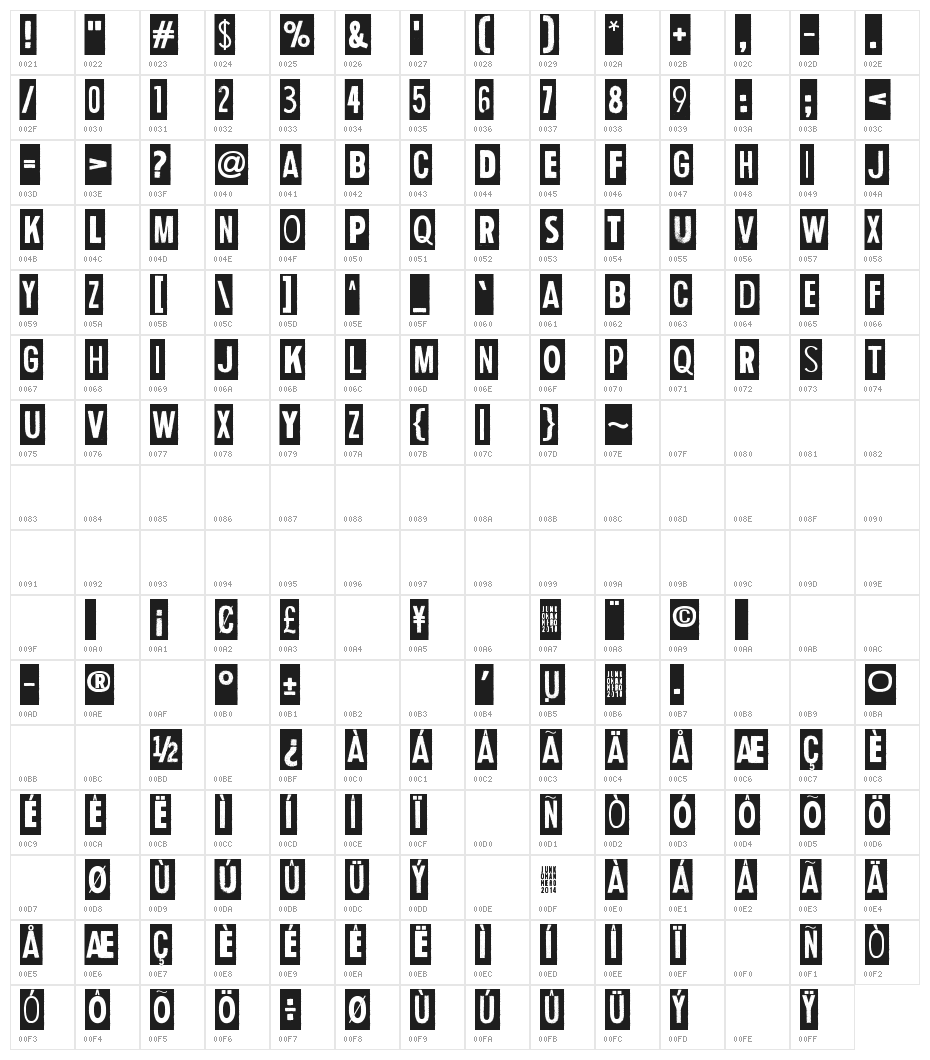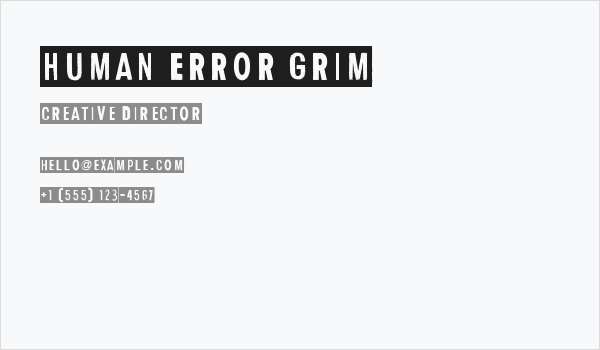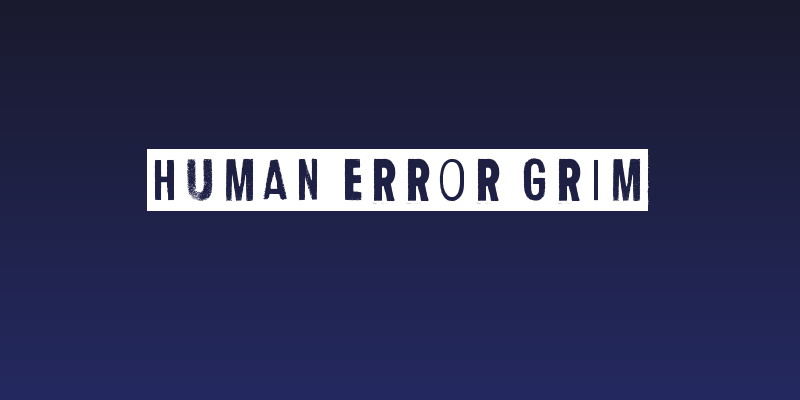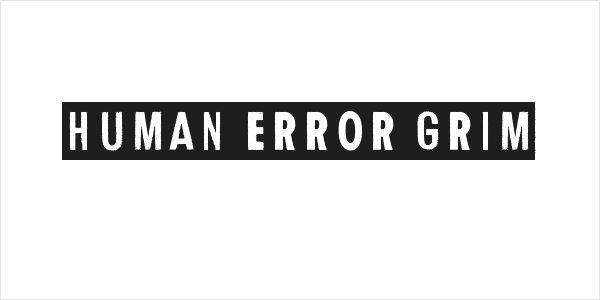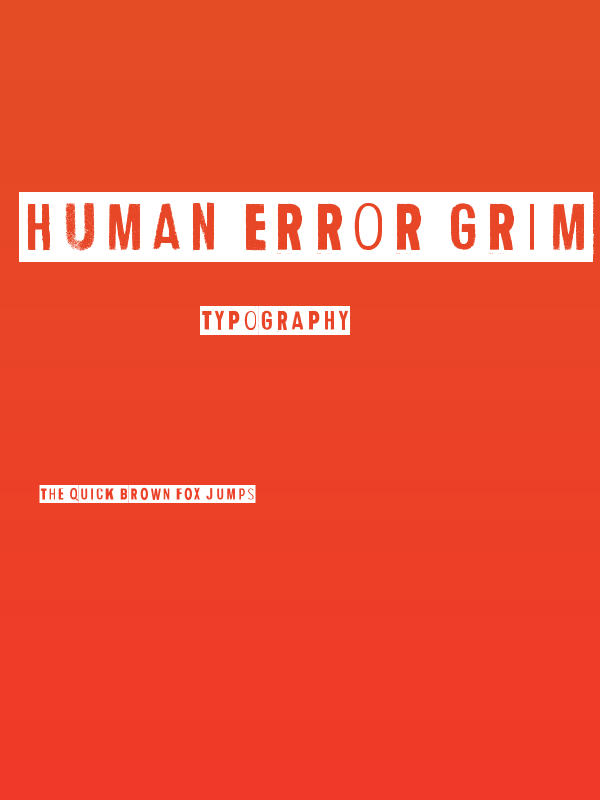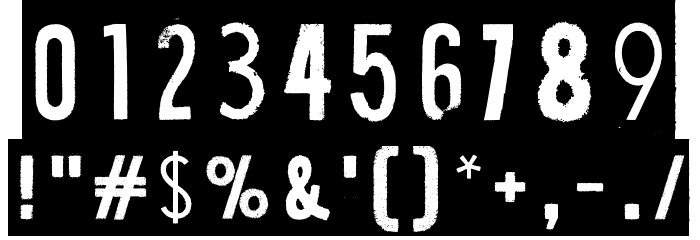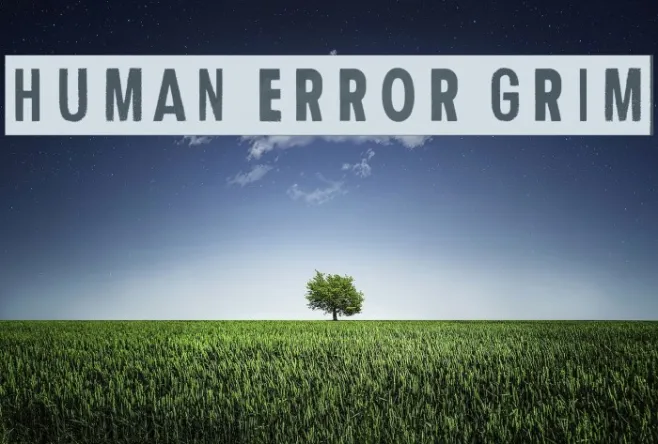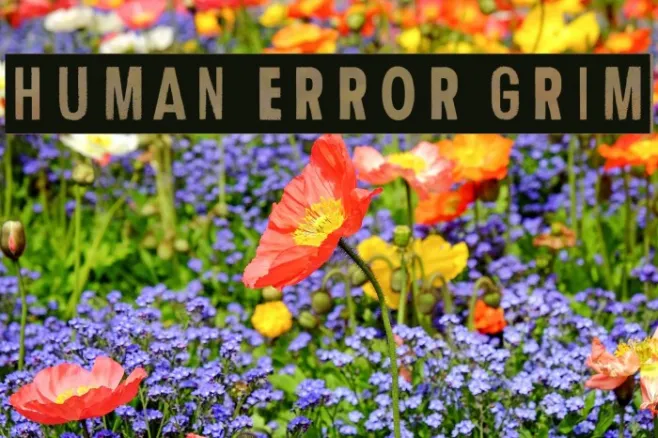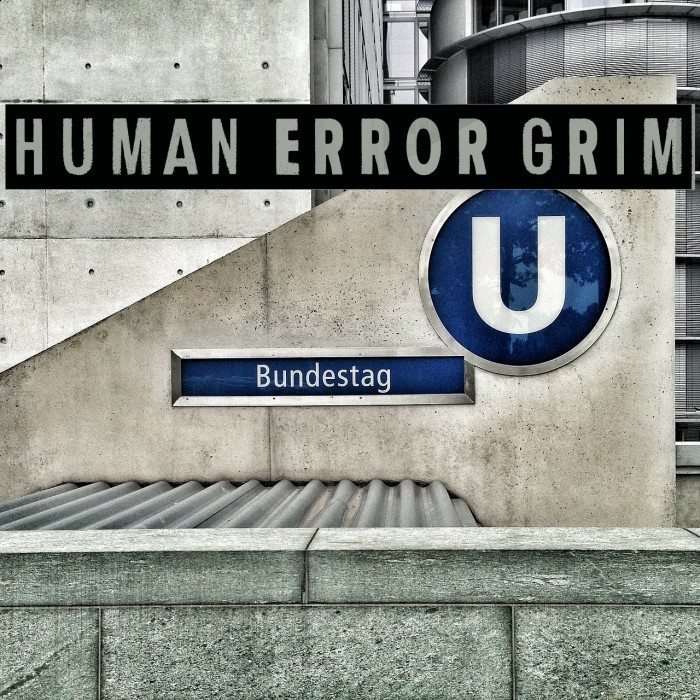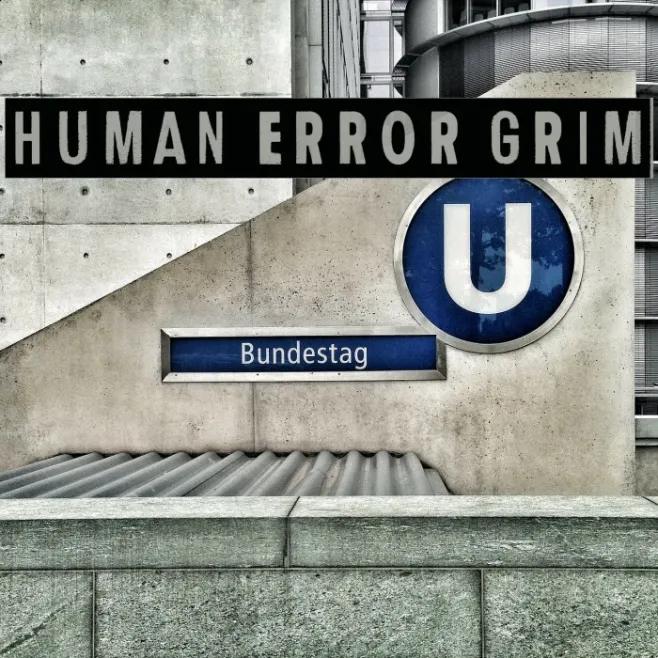
Human Error Grim Font
Human Error Grim Description
This font exhibits a bold, distressed style with a stencil-like appearance. The characters are uppercase and lowercase with a rugged, weathered texture that gives a vintage, industrial feel. The numbers and special characters maintain the same distressed aesthetic, adding to the overall cohesive look. The font's boldness and unique texture make it stand out, suitable for projects that require a strong, impactful visual presence. The spacing between characters is relatively tight, enhancing the compact and robust nature of the design. The contrast in stroke thickness is medium, providing a balanced yet dynamic appearance.
| Overall Style | Vintage, Industrial |
| Proposed Projects | Ideal for posters, branding, packaging, and any design that requires a rugged, industrial aesthetic. |